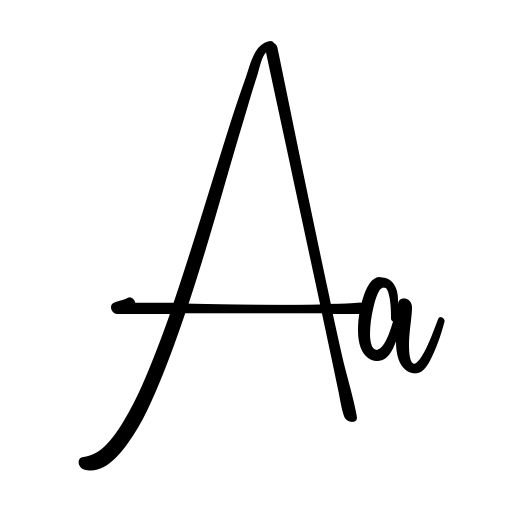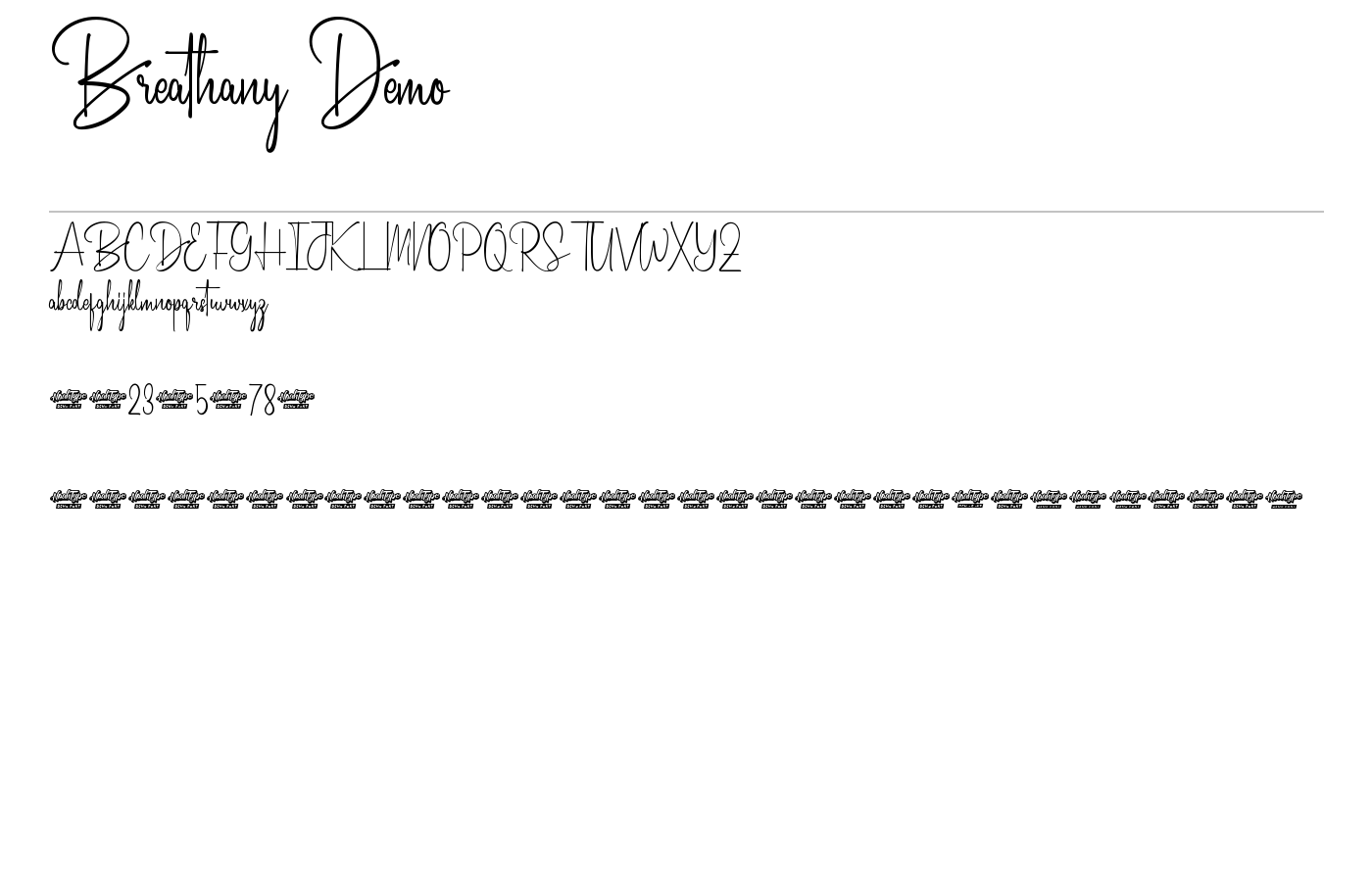
Breathany Demo is a delicate, handwritten script font with a tall, narrow structure and thin, flowing strokes that create an elegant and airy feel. Its slender letterforms and whimsical style make it ideal for feminine branding, invitations, and creative projects that require a personal, sophisticated touch. This font shines in uses where a gentle, handwritten charm is desired, such as logos, packaging, and stylish editorial accents.
Breathany Demo Font
About Breathany Demo Font